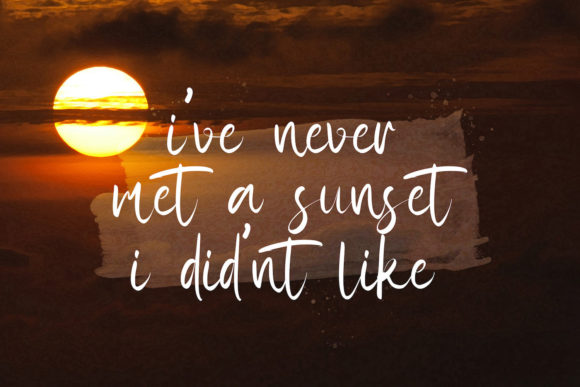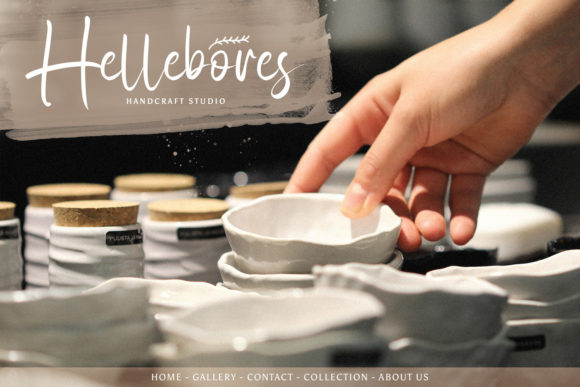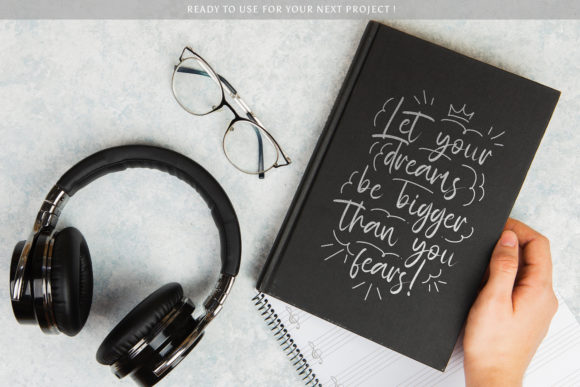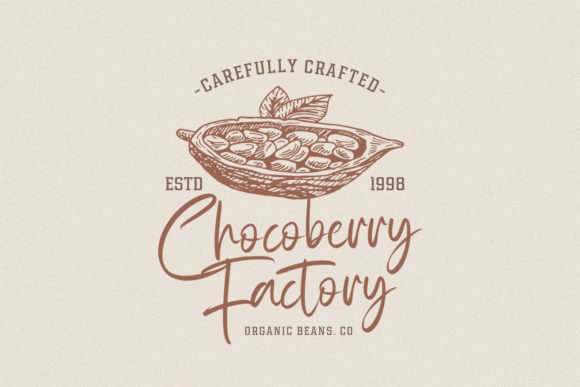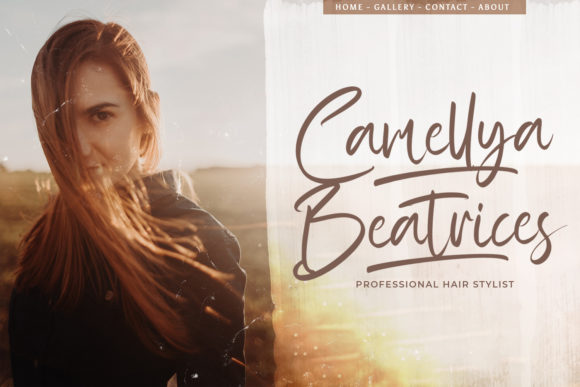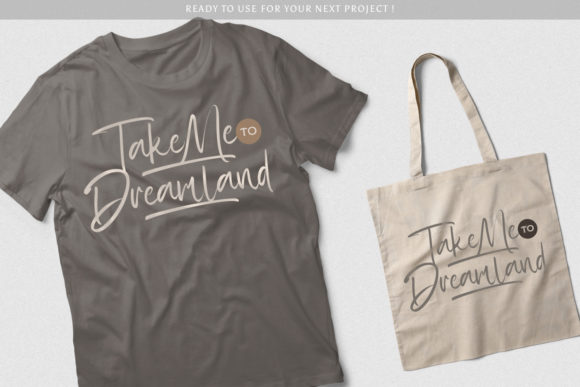
Introduction to Rattfiny Script Font
As a designer, have you ever been stuck on the perfect font to bring your creative project to life? You’ve spent hours browsing through endless options, but nothing seems to capture the essence of your vision. That’s where Rattfiny Script Font comes in – a delicate, elegant, and flowing handwritten font that’s sure to add a touch of sophistication to any design.
With its beautiful and well-balanced characters, Rattfiny Script Font is a versatile design resource that can be used in a wide range of creative projects. Whether you’re working on a free download or a high-quality commercial design, this font is sure to elevate your work. Plus, with its transparent background, it’s easy to layer and blend with other design elements.
As a valuable resource for designers, Rattfiny Script Font offers a level of flexibility and creativity that’s hard to find. So why settle for a generic font when you can add a touch of personality to your designs with this stunning script font?
Key Features of Rattfiny Script Font
- Unique, elegant script font design ideal for creative projects and design resources.
- Available for free download in high quality, making it a valuable resource for designers and artists.
- Designed to be highly legible, with a clear and readable script that’s perfect for titles, headings, and body text.
- Features a medium to high level of detail, with subtle flourishes and connections that add to its unique charm.
Honest Review: Rattfiny Script Font
As a designer, I’m always on the lookout for high-quality design resources to elevate my creative projects. Recently, I had the chance to work with the Rattfiny Script Font, and I’m excited to share my honest review with you.
- Unique and elegant design style that’s perfect for wedding invitations, branding, or any project that requires a touch of sophistication.
- May not be suitable for large-scale text, as the script font can be overwhelming.
- No bold or italic font weights available, which may limit its versatility.
Overall, I’m impressed with the Rattfiny Script Font’s unique design and high-quality files. While it may have some limitations, it’s a great addition to any designer’s toolkit, especially for creative projects that require a touch of elegance.
Tips for Getting the Most Out of Rattfiny Script Font
To get the most out of Rattfiny Script Font, experiment with different font sizes, colors, and combinations. Use it in conjunction with other fonts to create a visually appealing design. Additionally, consider using it for titles, headings, and other text elements where a creative touch is desired.
Rattfiny Script Font is ideal for various creative projects, including wedding invitations, birthday cards, and social media graphics. Its high-quality design makes it perfect for any project where a touch of elegance is required.